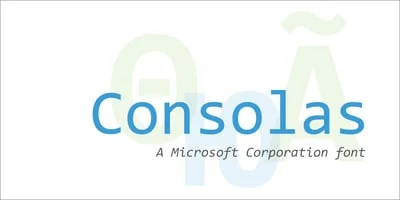
Consolas Font
Consolas Font is ideal for programming interfaces, code editor applications, software development documentation, terminal windows, technical specification materials, data visualization projects, system administration interfaces, developer tool design, computer science education, and monospace typography applications. This professional typeface creates authentic coding atmosphere in both development environments and technical documentation platforms.
What makes Consolas Font exciting is its exceptional optimization for programming clarity with perfect character distinction and reduced eye strain during extended coding sessions. The font features monospaced letterforms with enhanced readability characteristics and programming-focused design that ensure accurate code recognition and comfortable development experience. Its technical design establishes an atmosphere of programming professionalism and coding expertise that resonates with developers and technical professionals worldwide.
Consolas Font family includes programming variations: Regular, Bold, and Italic versions, each with complete monospace character sets and programming symbols. Each variant maintains the font's coding clarity while providing developers with essential options for creating readable code typography systems and technical communication materials.
This exceptional programming typeface brings authentic development credibility to projects requiring technical presentation. Whether you're designing development tools, coding tutorials, or technical documentation, Consolas Font delivers outstanding readability and programming sophistication. The font's monospace proportions and coding details ensure optimal development experience across various programming applications.
Software developers and tech companies recognize how Consolas Font perfectly balances programming functionality with professional presentation standards. Its technical foundation combined with readability optimization makes it essential for development and technical design projects. Download today and code your designs with this exceptionally clear programming typography.